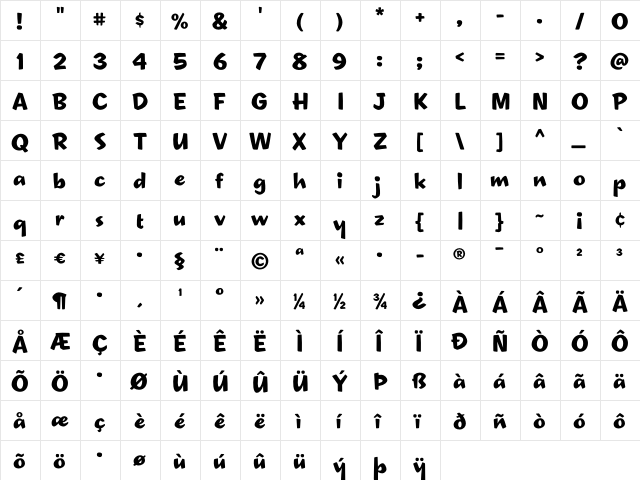
Las VegasOT Castaway
| Designer | Ken Barber |
Design Context for Las VegasOT Typeface
Las VegasOT is a composed and adaptable typeface that performs quietly and consistently across a wide range of design contexts.